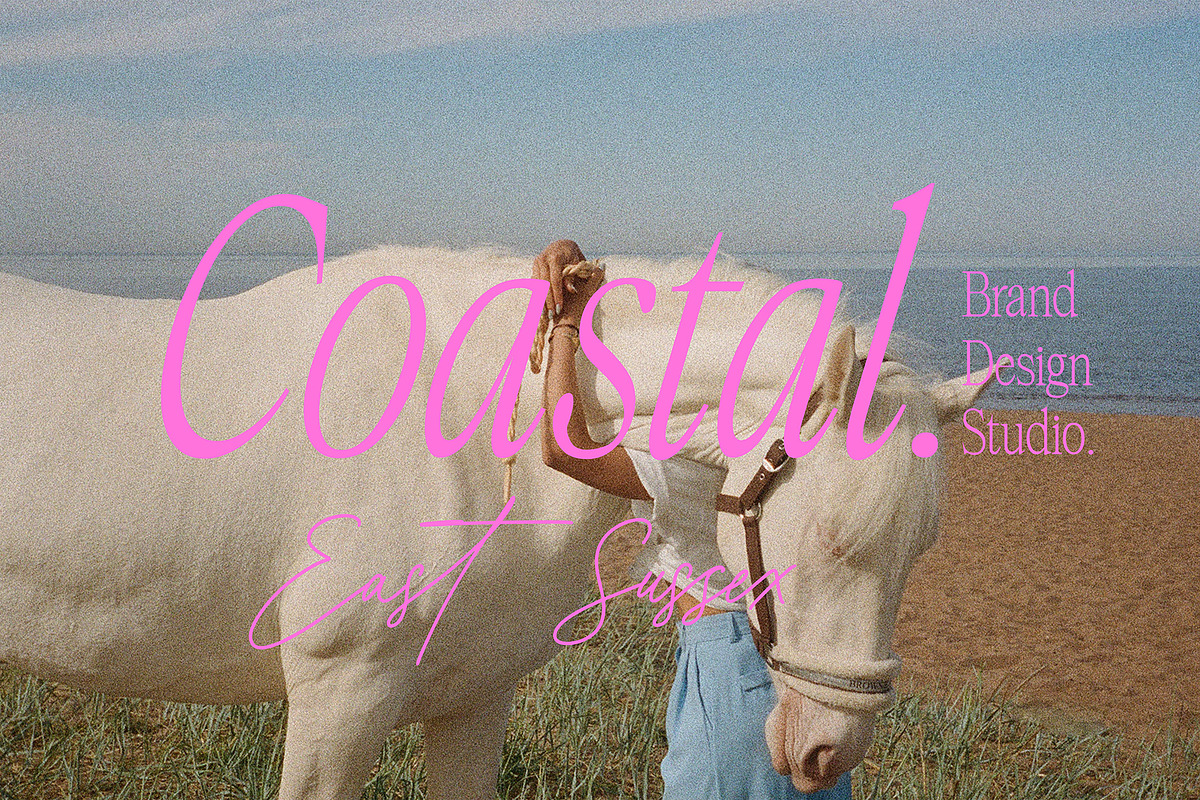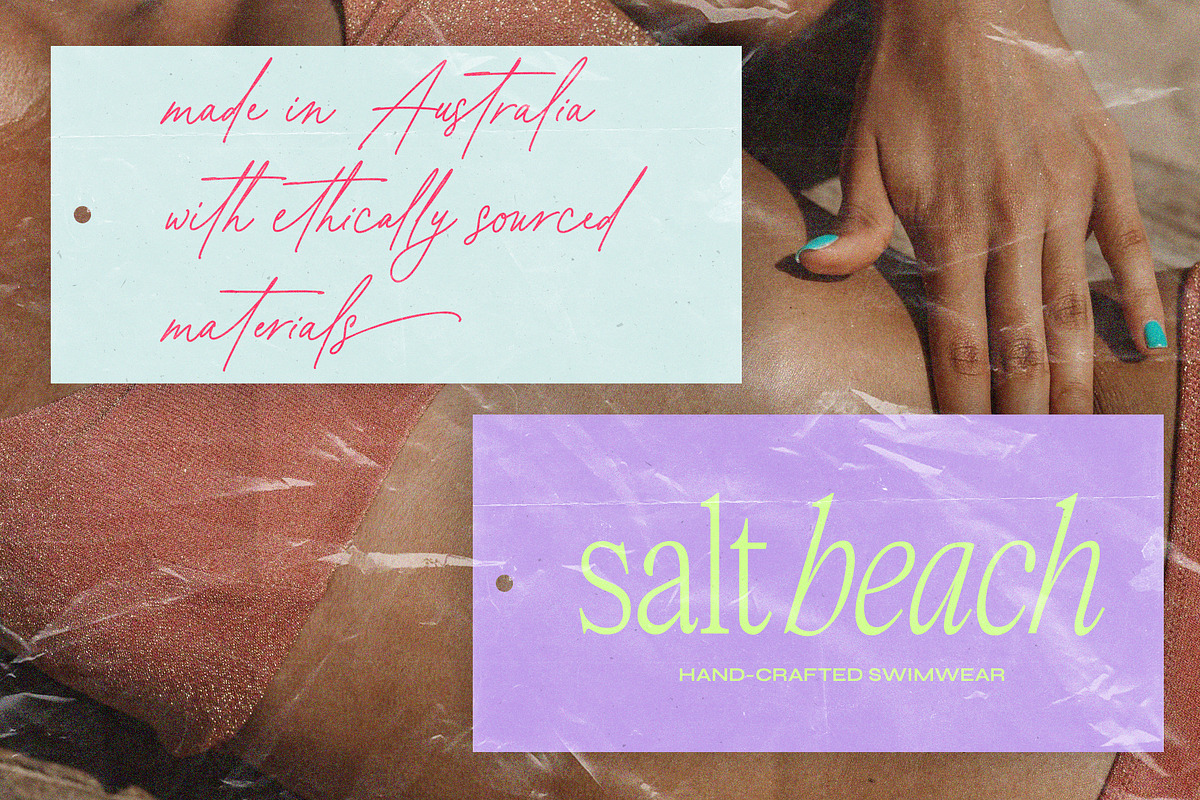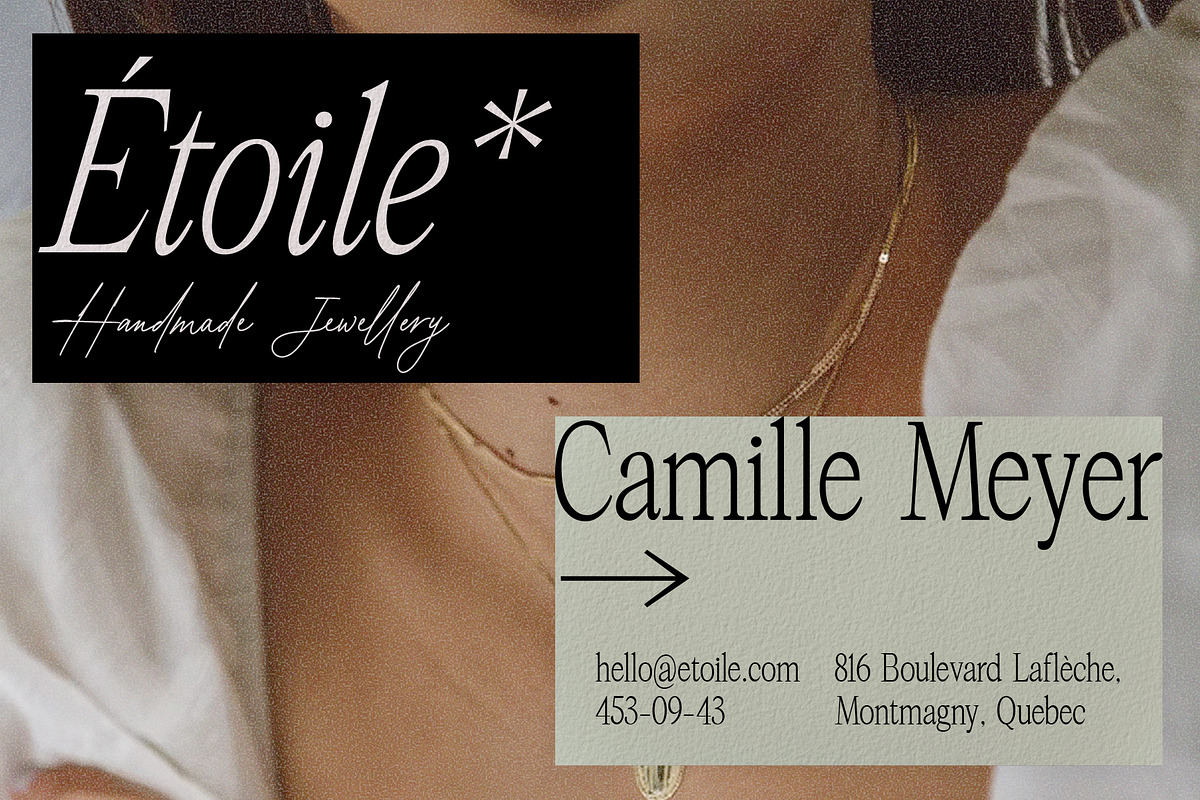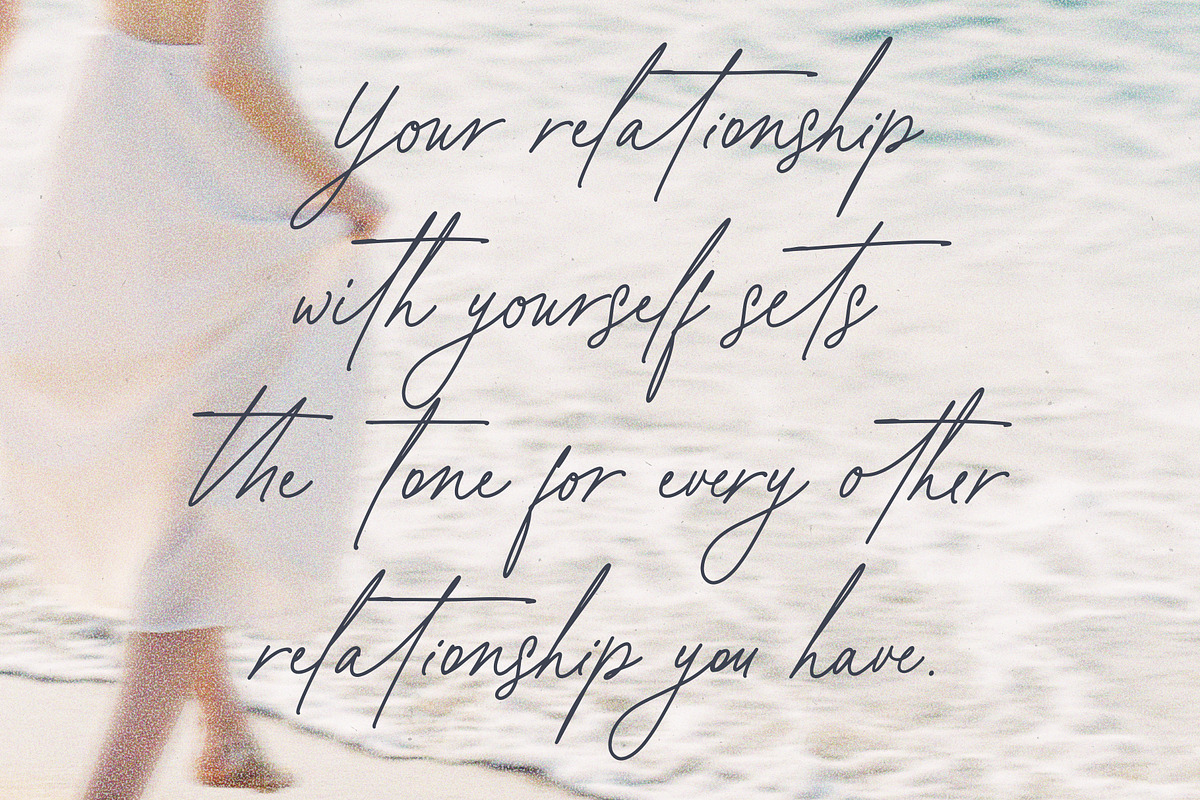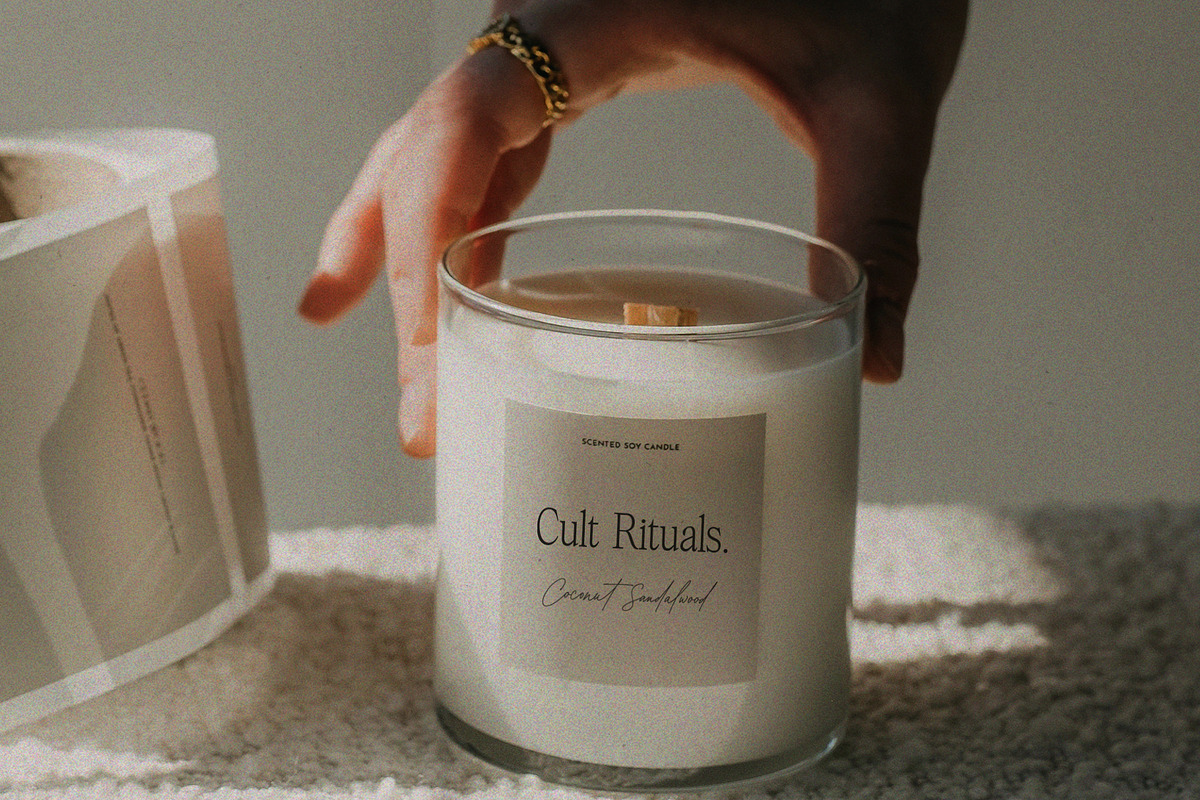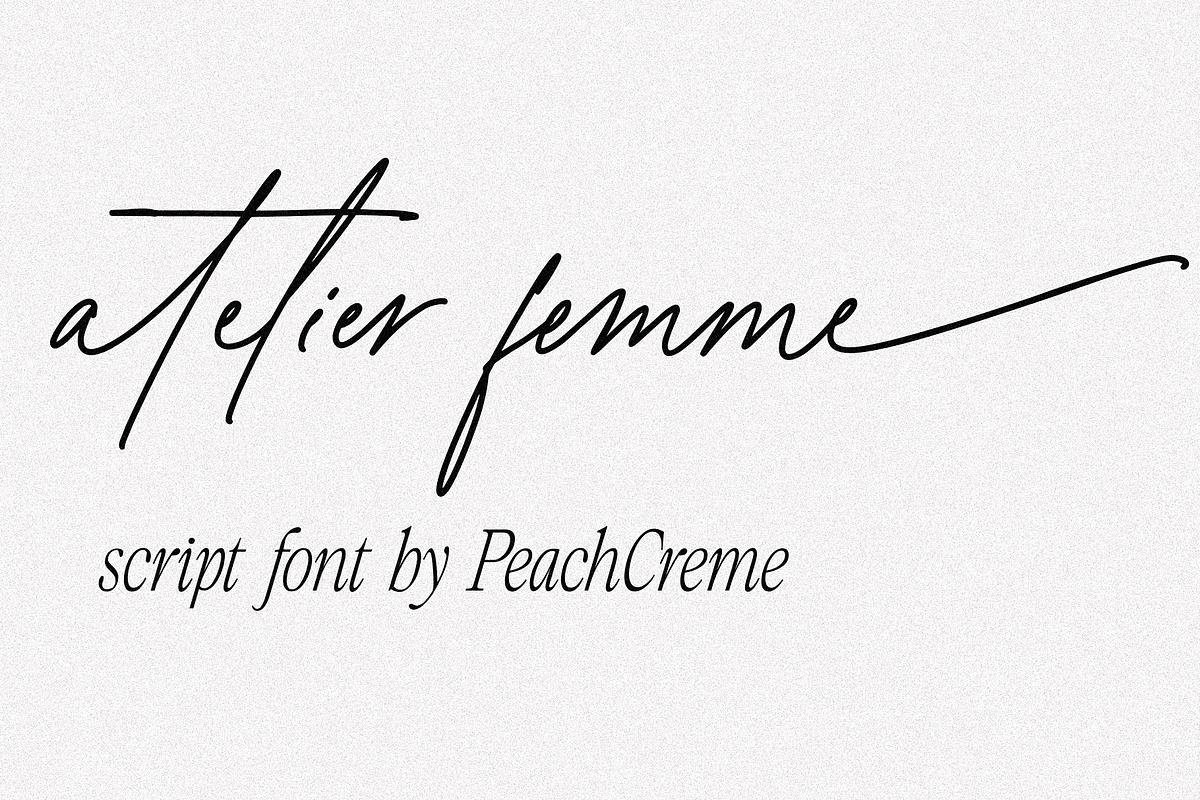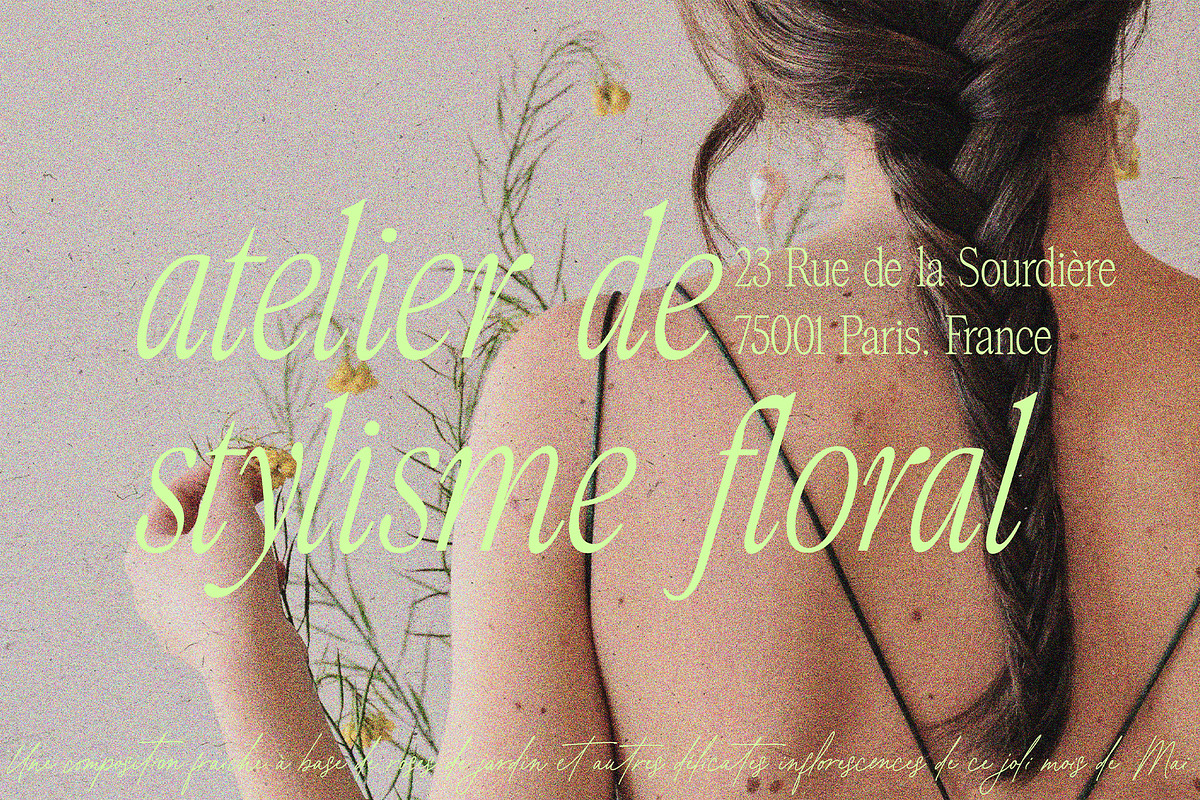
Atelier Femme // Modern Script
In case you're in love with the Script font included in the Atelier Femme Font Trio, this is your chance to save some cash. The script font is now available as a stand-alone product, without the need to also purchase a serif font. The script font has beginning uppercase, beginning and ending lowercase swashes.